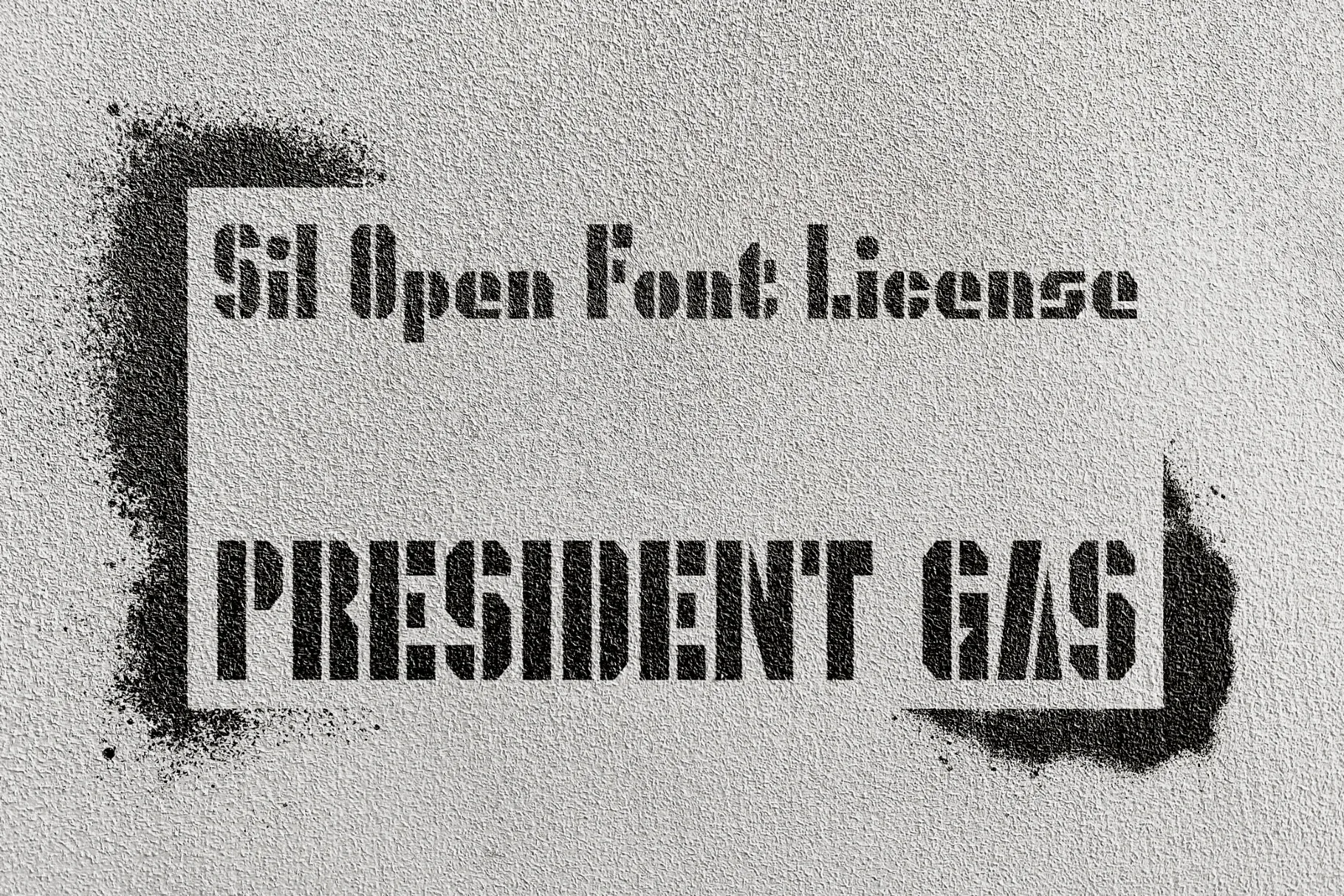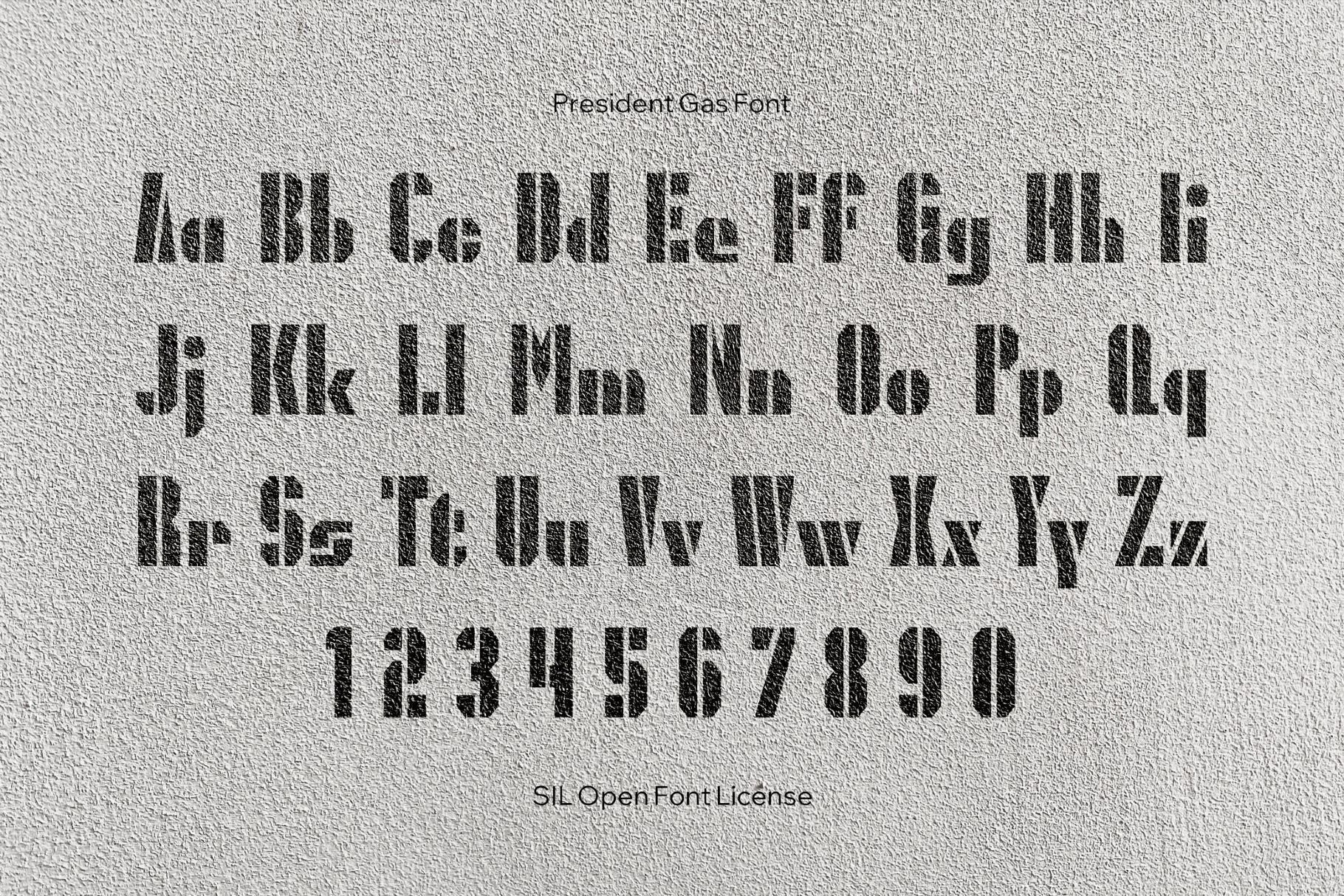
President Gas Font
President Gas
The cut-out bridges and squared curves of President Gas Font remind of novelty balloon lettering, parody branding, and the exaggerated graphics of late-’90s pop satire. The words are like machine labels, so the typeface works naturally for humorous posters, ironic logos, meme-driven graphics, playful packaging, club flyers, magazine headlines, event promos, UI mockups, and social visuals.